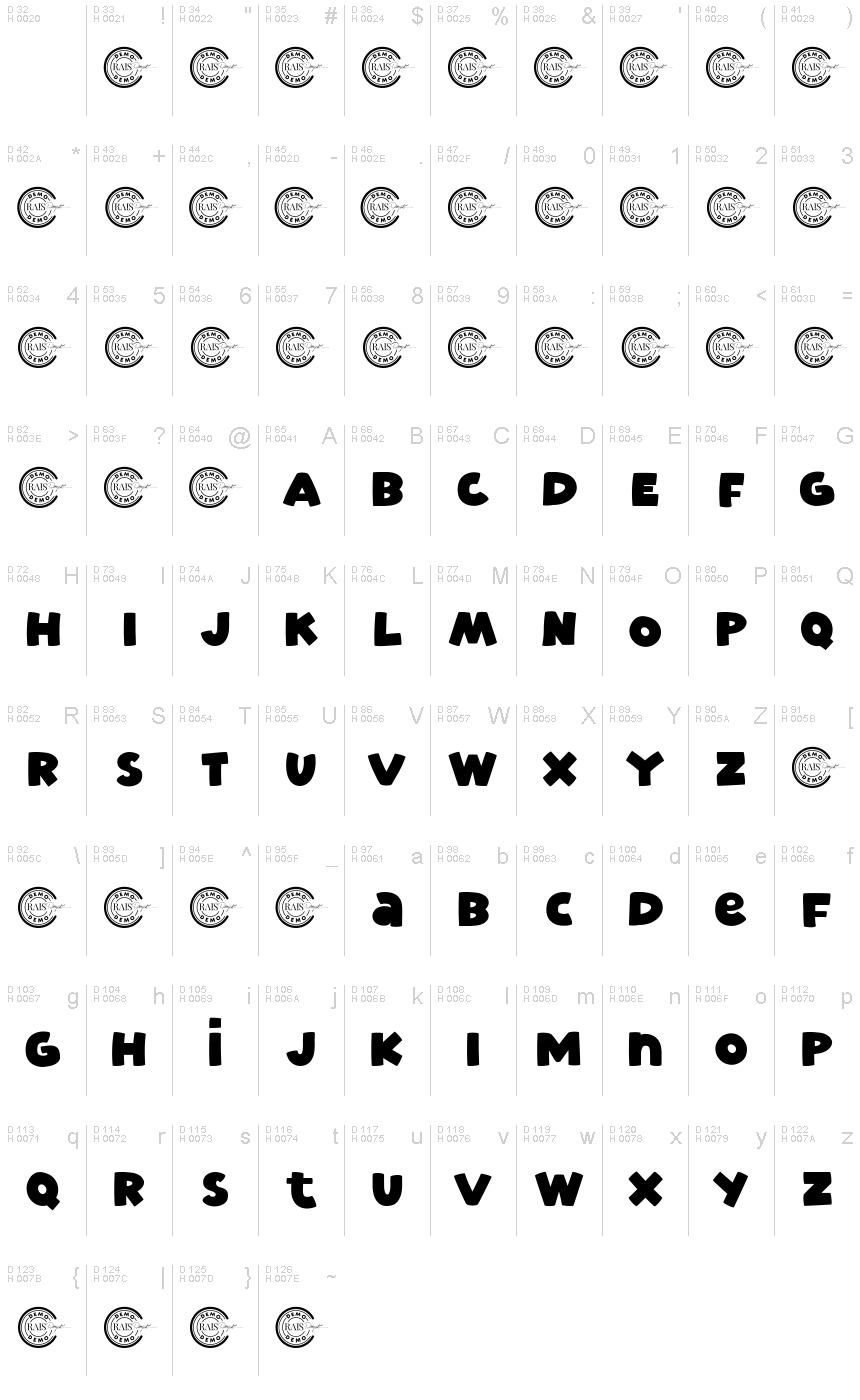
Holiday Again font by RaisProject is a playful and bold cartoon display typeface. Its geometric shapes channel a retro-inspired 1970s vibe, offering a lively and nostalgic aesthetic. This font exudes a fun and informal mood, perfect for evoking a sense of freedom and creativity.
Use it in youth-focused advertising, event posters, or branding for lifestyle products. Perfect for retro signage, vintage movie posters, high school yearbooks, themed parties’ invites, typography projects with historical references in mind or packaging designs for nostalgic brands.